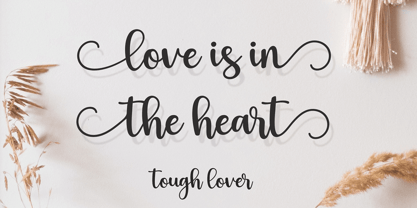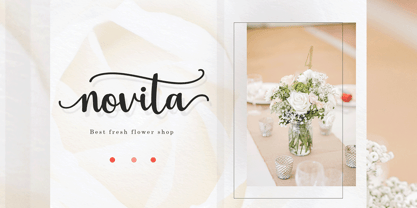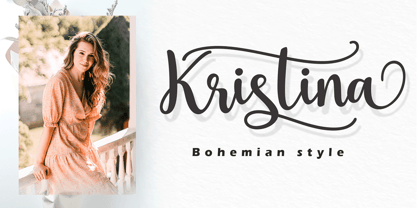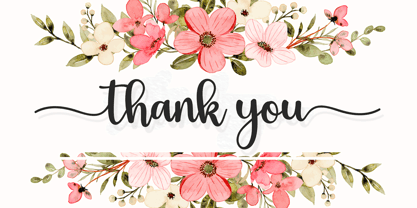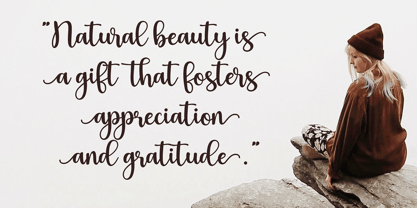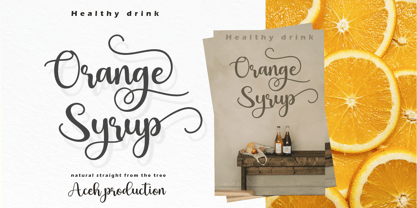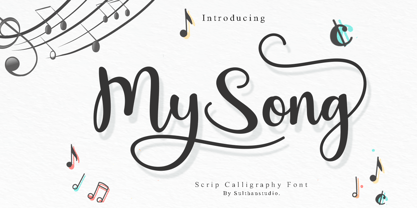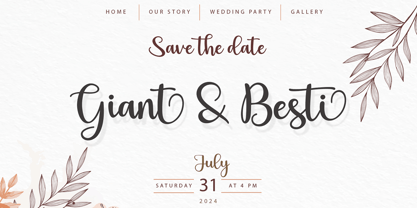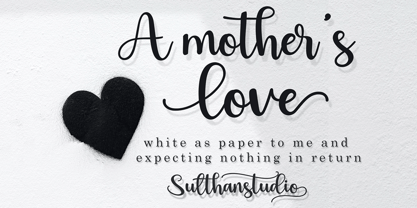
My song
by Sulthan Studio
The My song Font Family was designed by Nasrullah and published by Sulthan Studio. My song contains 1 styles.
My Song is an exquisite handwritten font, masterfully designed to become a true favorite. It maintains its classy calligraphic influences while feeling contemporary and fresh. Fall in love with it and bring your projects to the highest levels!
Designers: Nasrullah
Publisher: Sulthan Studio
Foundry: Sulthan Studio
Design Owner: Sulthan Studio